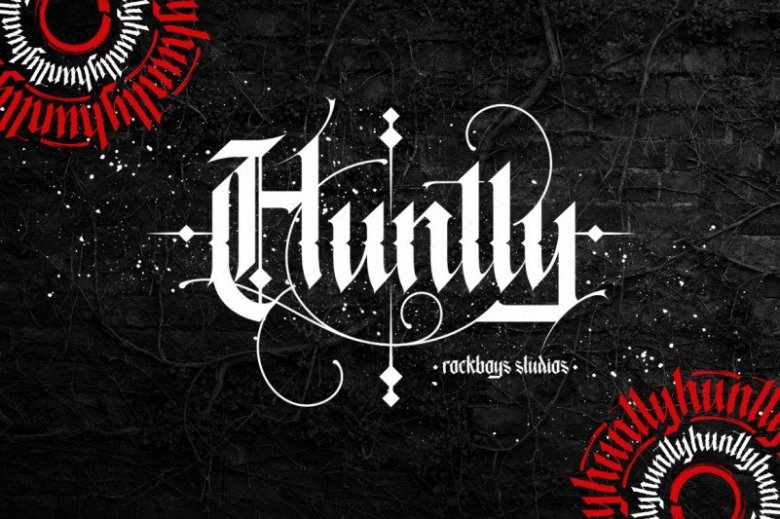
Huntly Blackletter Font Free
Thanks for checking out Huntly Blackletter Font, inspired from Victorian Era with the ornamental and decorative font With Variant for the Capital Letters and alternates for changes the unique glyphs for design needs like Poster, logos, badges product, magazine with vintage taste. Made from font designer named Rockboys Studio. And It’s an incredibly unique and distinct blackletter font. Masterfully designed to become a true favorite, this font has the potential to bring each of your creative ideas to the highest level!